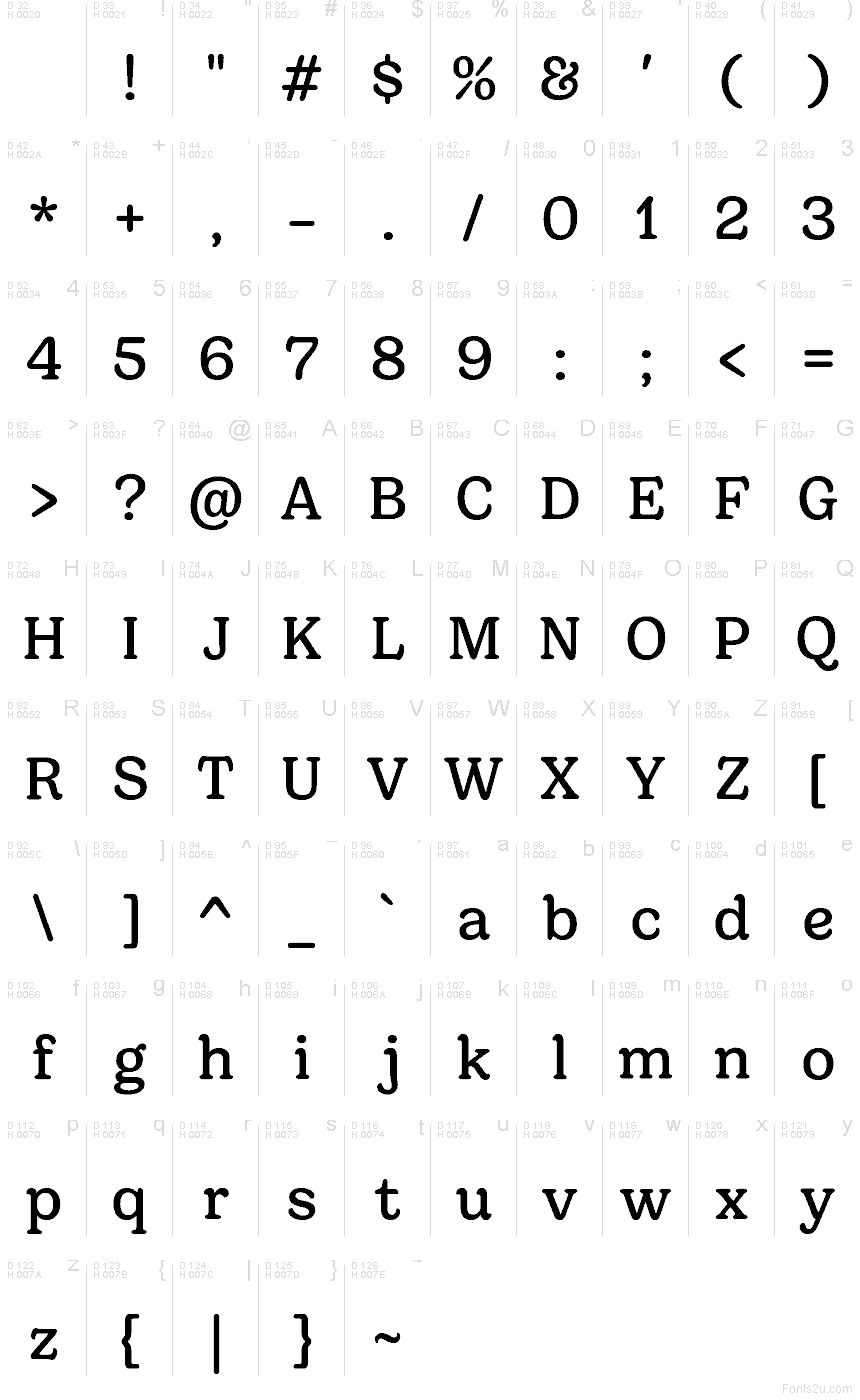
TCA Thecoa by Nguyễn Quang Khải and Thecoa Foundry is a free old-school serif font with a slightly eccentric silhouette. Broad capitals carry softly bracketed serifs, and changing stroke widths give the lettering a warm printed quality. Compact lowercase forms add a looser note through rounded shoulders and tall upward strokes.
Designers in hospitality, food, and independent publishing will find its familiar but offbeat manner useful. It lends restaurant menus, book covers, and event posters the flavor of a well-kept vintage sign. The font should appeal to audiences who enjoy traditional typography with a noticeable streak of informality.
TCA Thecoa Medium